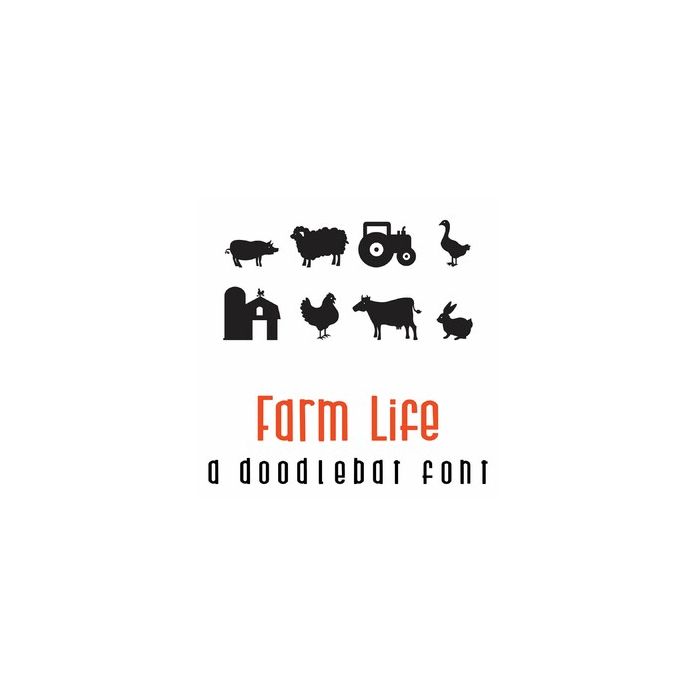
Farmlife Doodlebat Font
This fun doodlebat font features 26 farm animals and imagery. Perfect for cards, crafts, gifts, decor, scrap book pages, planner stickers and more!